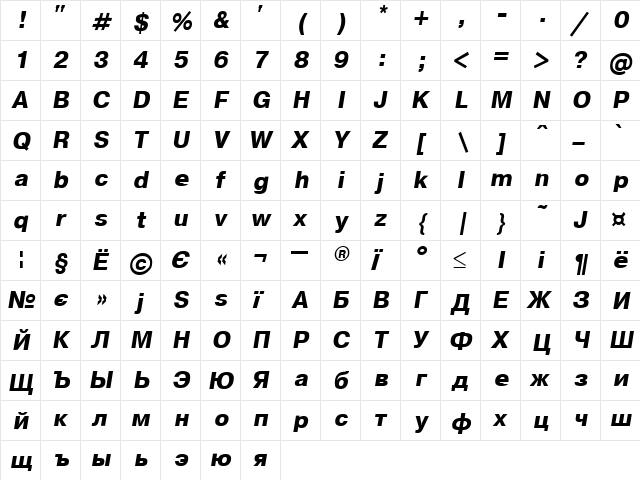
Geneve Bold Italic
Design Context for Geneve Typeface
Geneve is a composed and adaptable typeface that performs quietly and consistently across a wide range of design contexts. The slanted form adds forward momentum and visual energy. The heavy weight commands attention and anchors typographic hierarchies.
Pro Tip: Try Geneve for annotation and caption copy alongside an upright companion — the contrast in angle creates a dynamic but ordered typographic system.